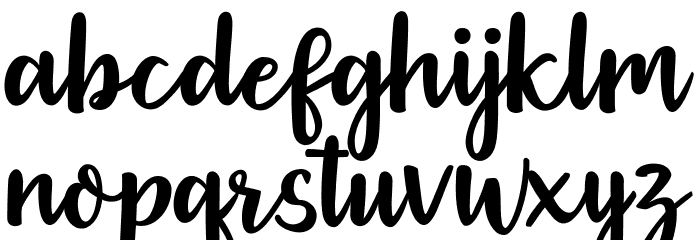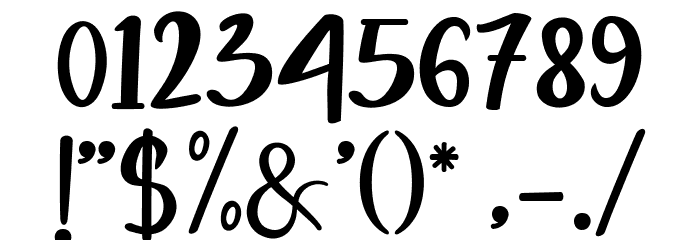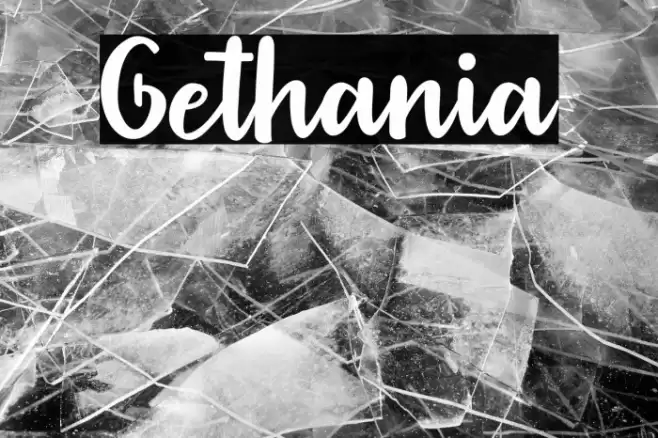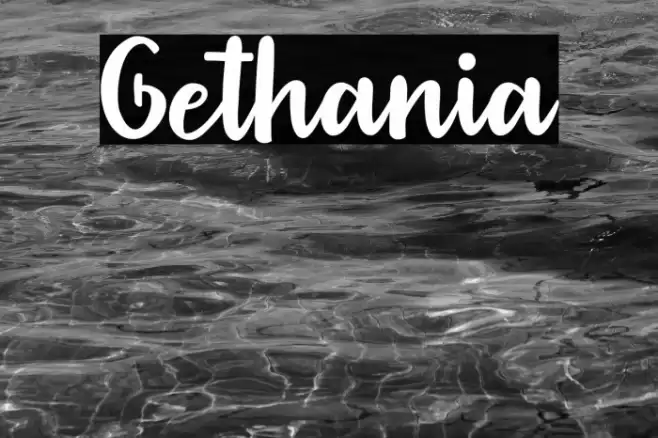
Gethania Font
This font features a playful and energetic script style with a handwritten appearance. The letters are bold and fluid, with a consistent stroke width that gives it a lively and approachable feel. The uppercase letters are slightly more structured, while the lowercase letters have a more casual and flowing look, adding to the overall charm. The numbers and special characters maintain the same playful aesthetic, making it versatile for various design needs. The font's style is both modern and friendly, suitable for projects that require a personal touch.
A bold, playful script font with a handwritten style.
- Font: Gethania
- Proposed Projects: Ideal for greeting cards, invitations, branding, social media graphics, and playful packaging designs.
- Category: Script
- Use Case: Logos, Headlines, Invitations